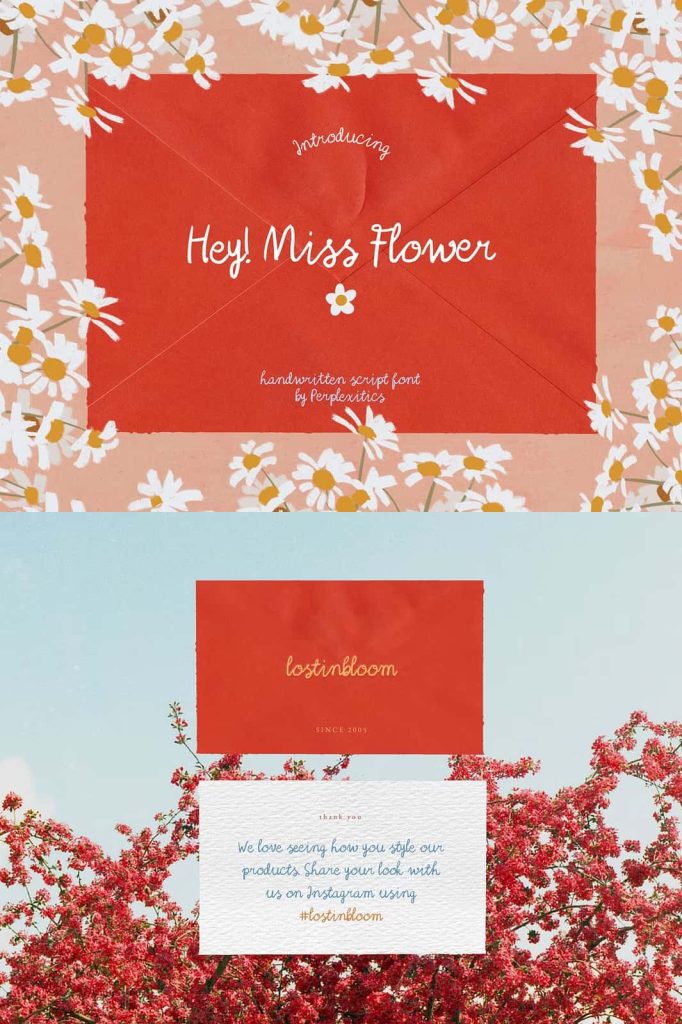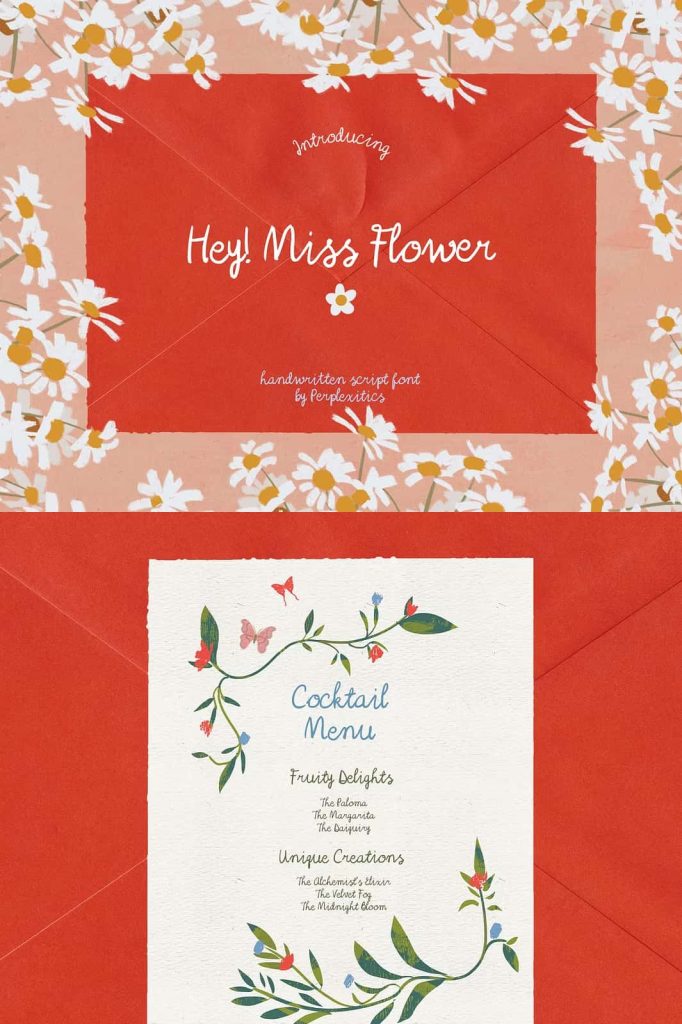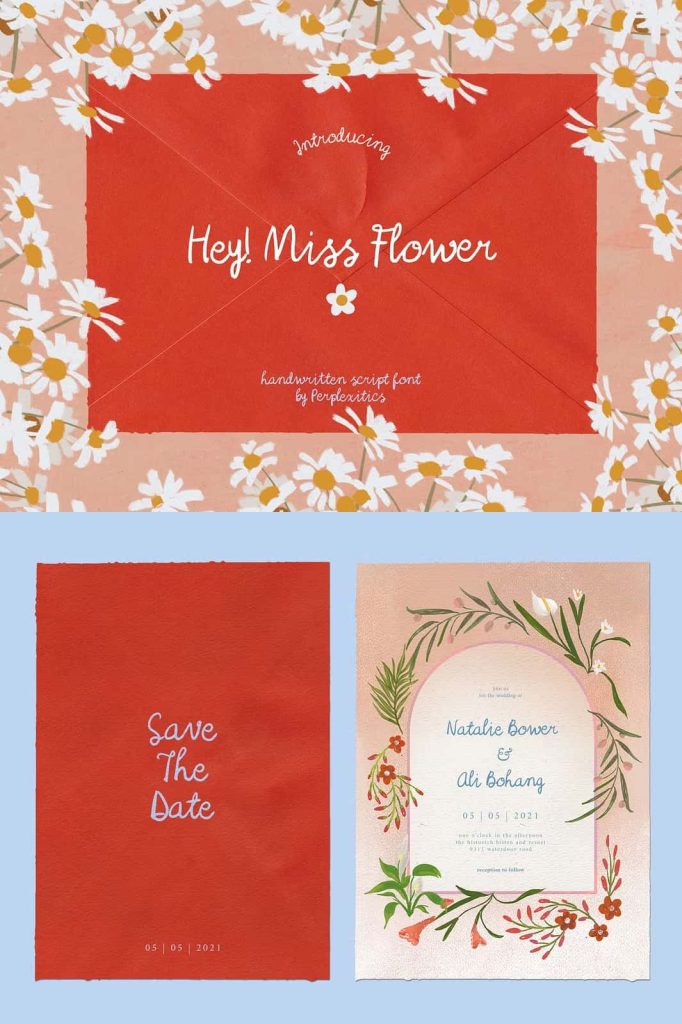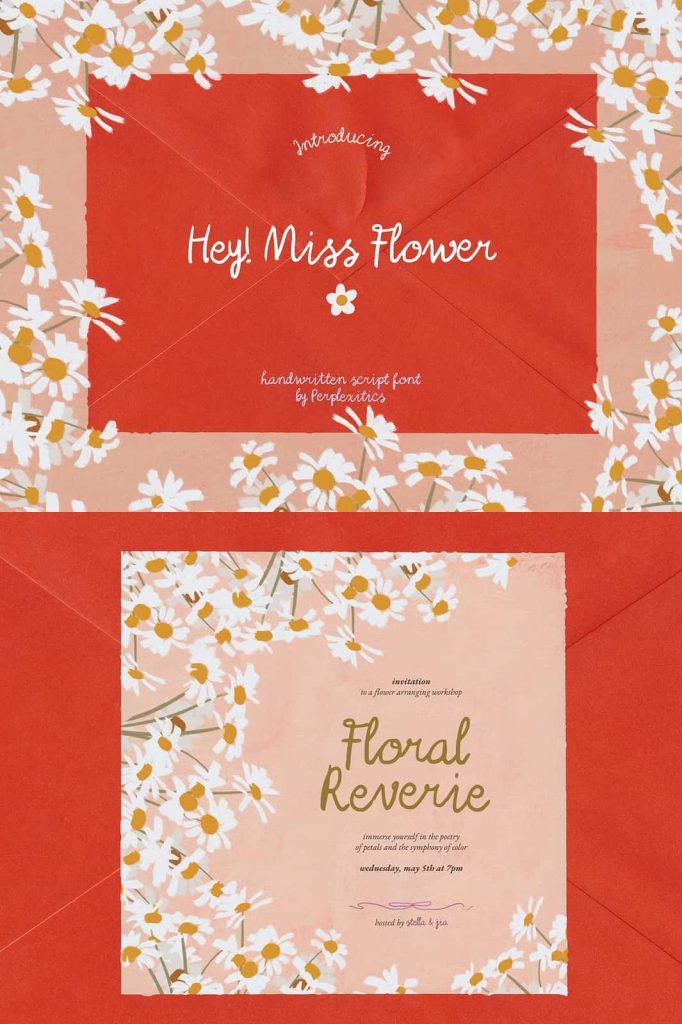
Hey Miss Flower Handwritten ScriptleastedFebruary 13, 2025Fonts Hey Miss Flower is a charming handwritten script font that exudes cuteness, playfulness, and sweetness. Download